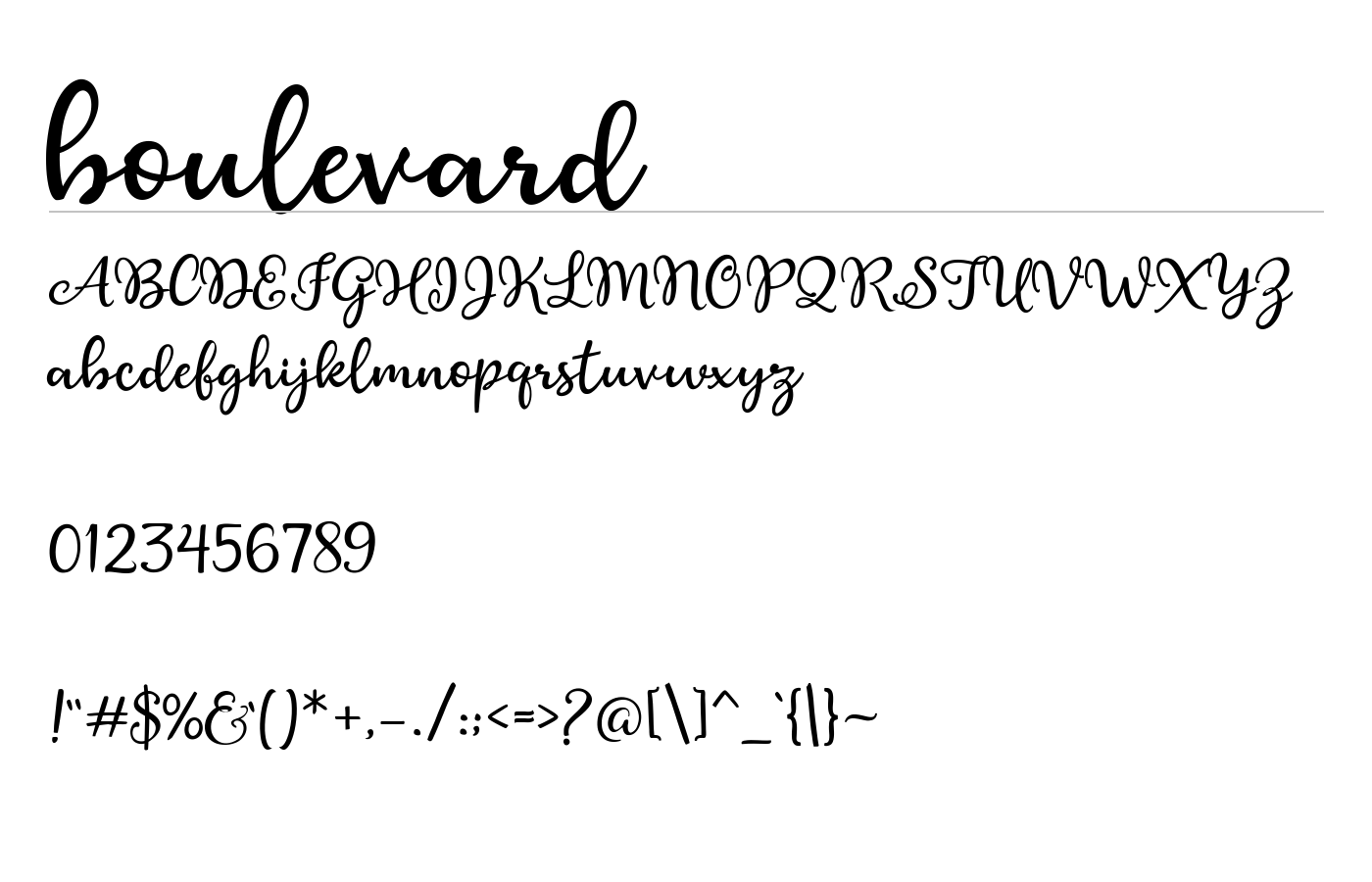
Boulevard is a charming script font with playful, flowing letterforms and a casual elegance that makes it feel approachable yet stylish. Its moderate contrast and smooth, rounded strokes create a warm, handwritten impression suitable for branding, invitations, and creative headlines seeking a friendly and personal touch. This font excels in designs that want to convey warmth, creativity, and a touch of sophistication without being overly formal.
boulevard Font
About boulevard Font
| Designer | SmartDesigns |